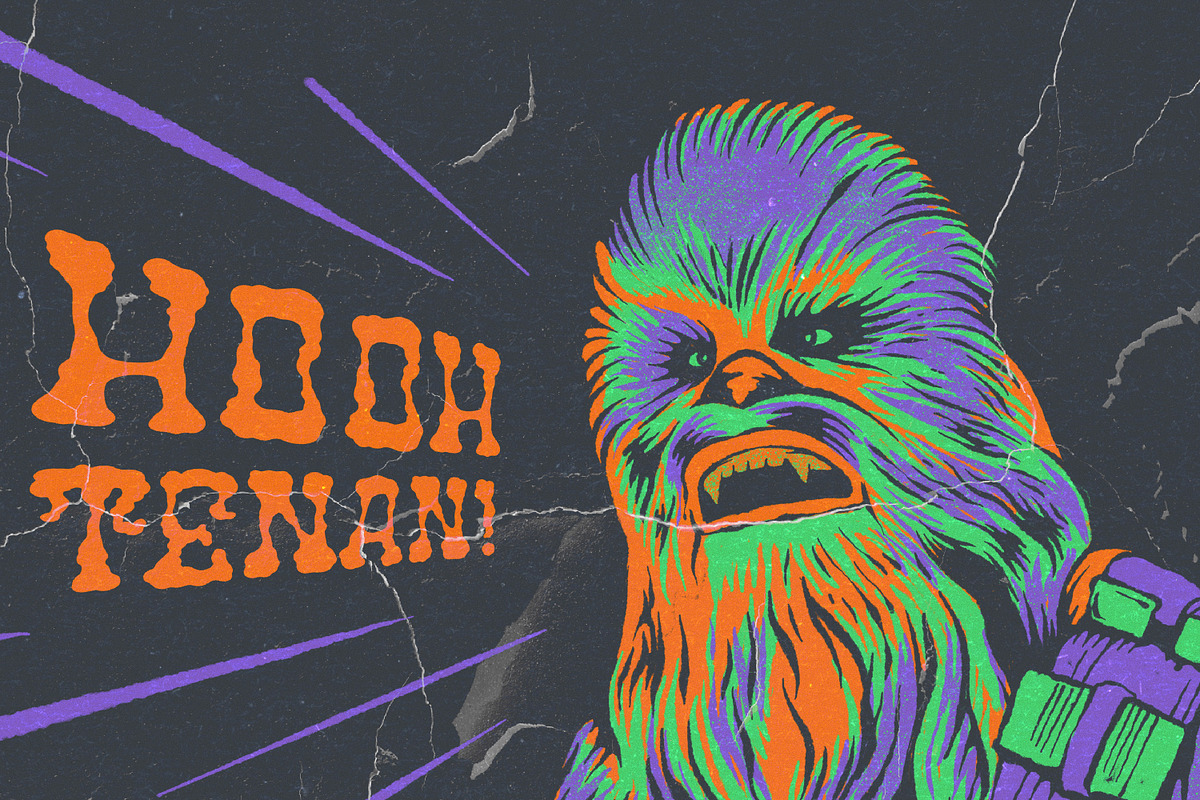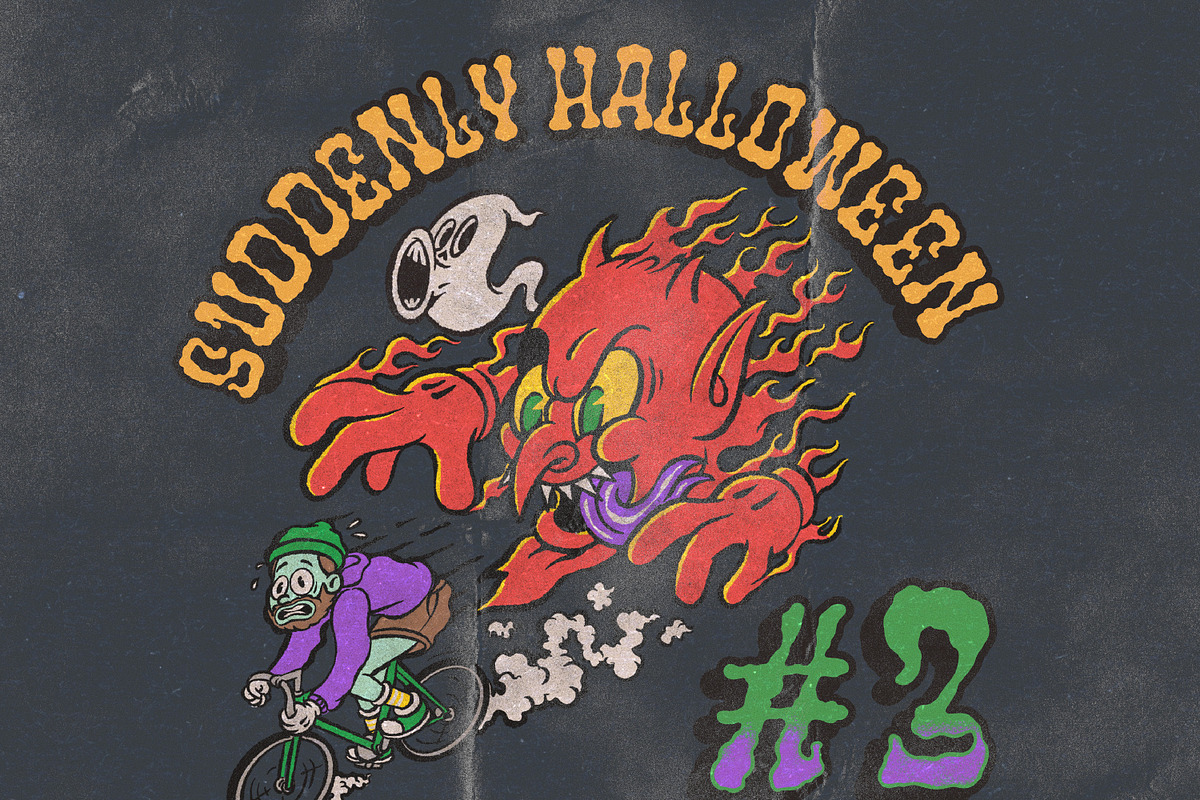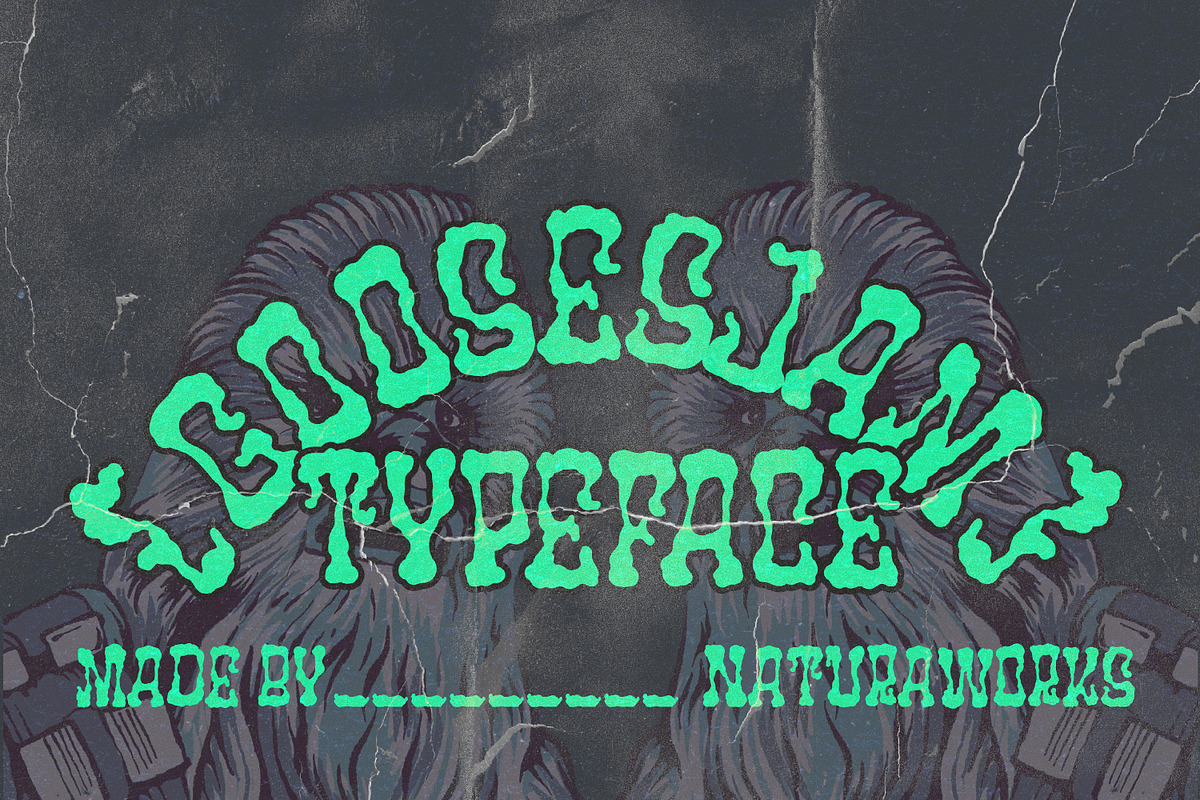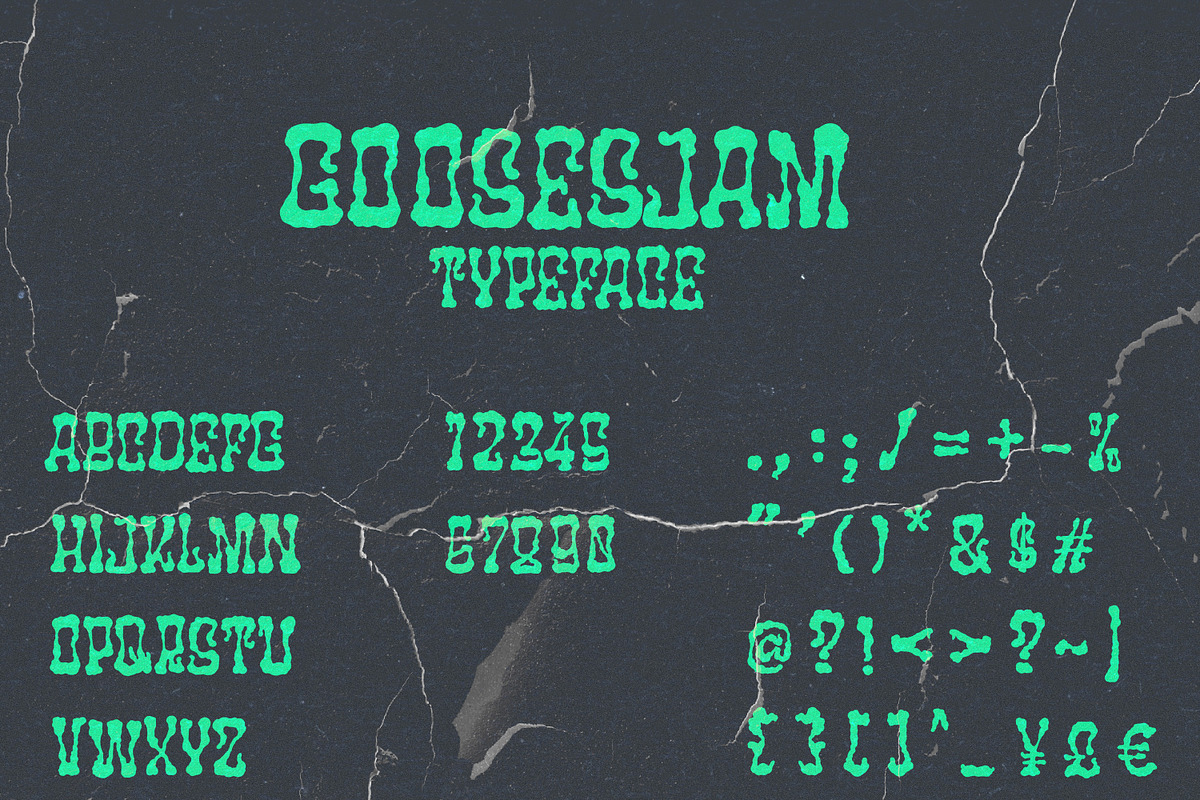
Goosesjam Typeface
INTRODUCING
GOOSESJAM TYPEFACE. Is a font inspired by Goosebums fonts. Very fit and easy to make your awesome product, create label design, logo design, badge design, t-shirt design, posters, greeting cards, letterheads or anything looks like vintage and halloween vibes. Hope you like it!